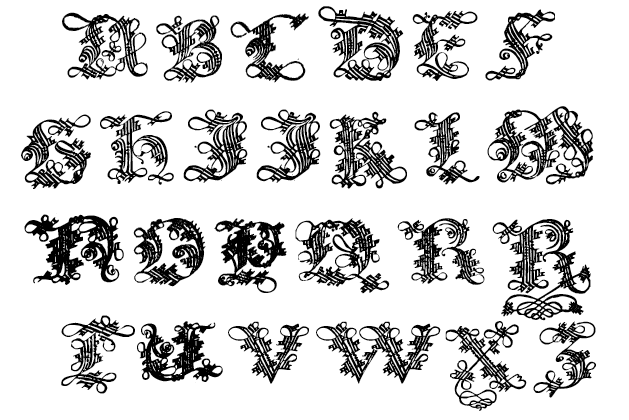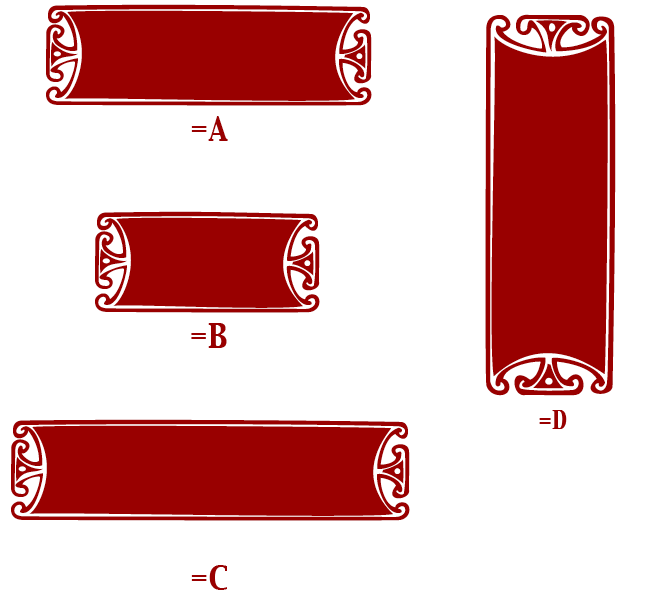
| 1. Complete: all the Latin capitals, all the Latin small letters, and other bits and pieces | |
![]() NEW! Edward's Uncials 1904 - inspired by Edward Johnston's modernisation of early mediaeval handwriting, from the seminal book which sparked off the 20thC. calligraphy movement |
![]() DeBeauChesne Roman : London 1601, and many earlier editions |
![]() Rick's Classic Italic (Richard) |
![]() Rick's Folklore Roman (Richard) |
![]() NEW! Sonnet Script - inspired by the calligraphy of this Welsh artist and poet David Jones |
| 2. Just capitals | |
![]() Bickham SwashCaps (a quick sketch for those who can't afford Adobe's version at $105) |
![]() Petzendorfer Decorated Capitals |
![]() Davie's Sapphire - NEW! Layered version! |
![]() Taliente Decorative Capitals |
![]() Westminster Memorial Brasses |
![]() Rick's Decorated Uncials (Richard) |
| 3. Ornament and decoration | |
![]() Rick's Pen Ornaments (Richard) |
Luttrell Psalter - inspired by the 15th C manuscript |
![]() Shaw Decorated Capitals 1 six versions in separate layers |
![]() Ida's Floodles |
![]() Kurbits |
| 4. Just sketches, incomplete
set of characters which
might be of some use to somebody some time: if someone asks for the rest I'll do them |
![]() Davie illuminated capitals - only two letters, but they're fascinating! |
![]() Anders plain capitals - 17 letters, 3 ornaments |
![]() Dagmar's IlluCaps - only one letter , but it's a beautiful one! |
![]() Cartouches after Lodovico Vicentino degl'Arrighi - 4 shapes |
![]() Samuel - 22 letters and a couple of curlie-whurlies |